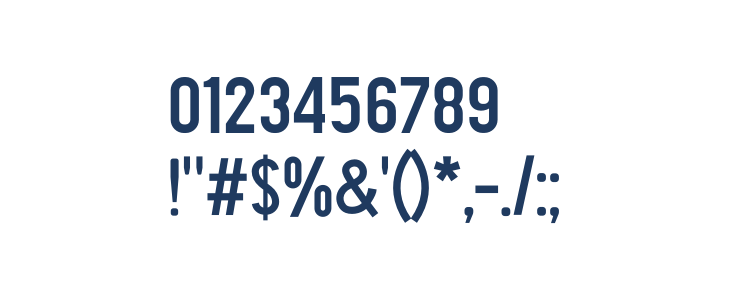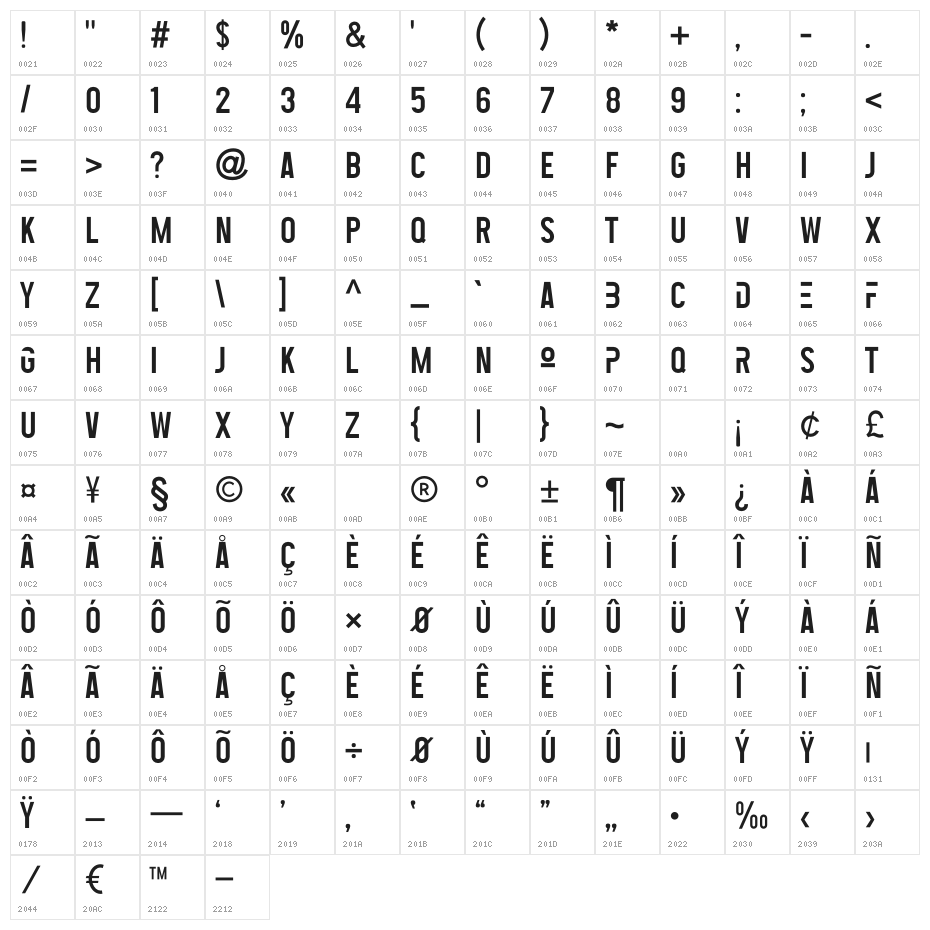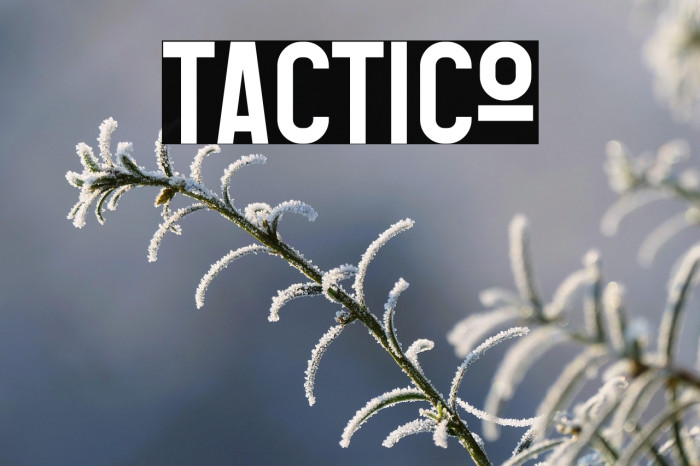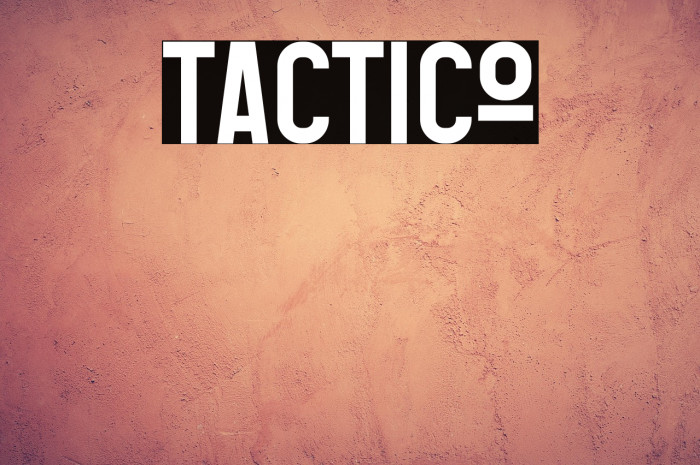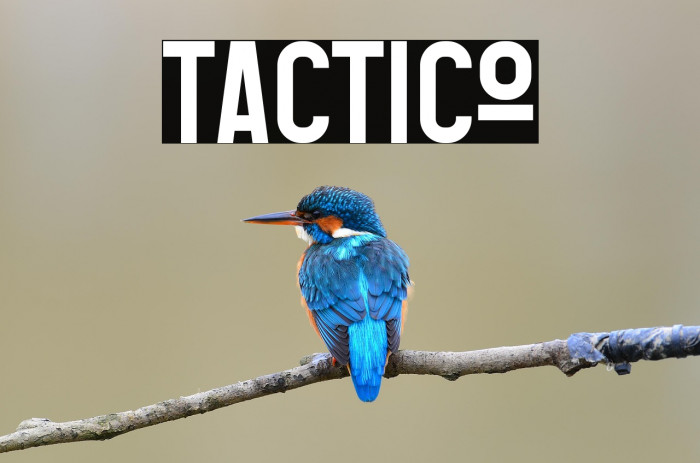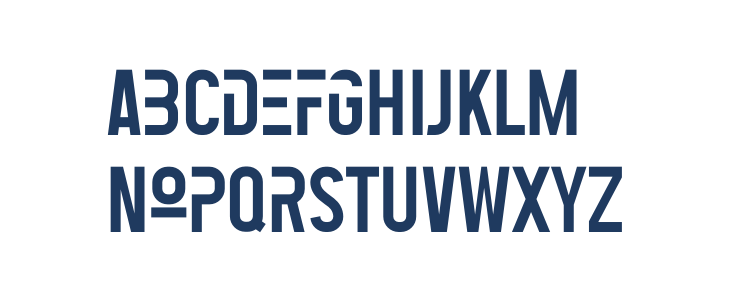
Tactico Font
Tactico Description
This font exhibits a bold and assertive style, characterized by its strong geometric shapes and uniform stroke widths. The uppercase letters are tall and commanding, with a slight angularity that adds a modern edge. The numerals are equally bold, maintaining the same height as the uppercase letters, ensuring consistency across all characters. Special characters are designed with the same attention to detail, providing a cohesive look. The font's overall appearance is clean and structured, making it suitable for impactful headlines and branding materials.